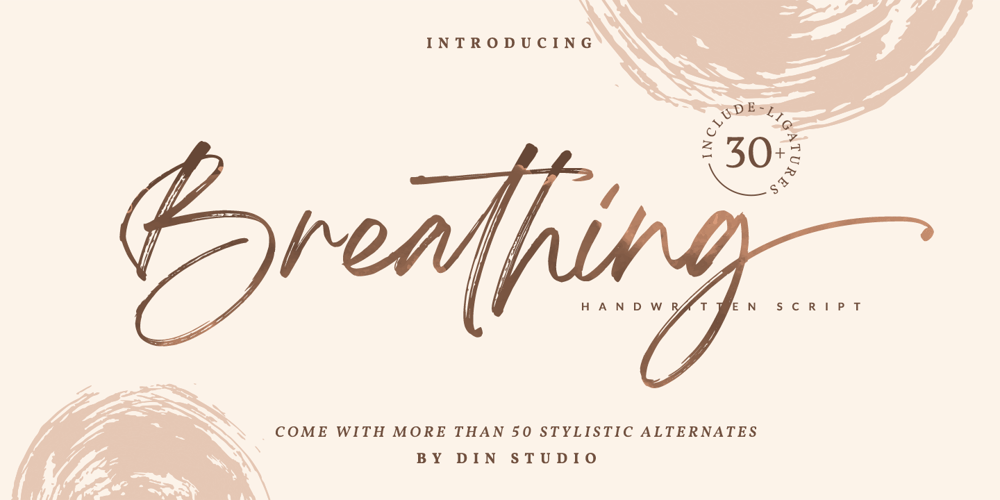
Breathing Font Family was designed by Donis Miftahudin and published by Din Studio. Breathing contains 2 styles and family package options. Hello, awesome people! This time, we have a new font called Breathing, a beautiful brush font created by Din Studio.Breathing, a beautiful brush signature font, is made for any professional project brandings, such as, signature logos, watermarks, wedding invitations, brandings, promotions, product packagings, etc. Every letter has a unique and beautiful touch. This font comes with rough and solid version.Breathing brush font includes a full set of hand-writing uppercase and lowercase letters, numerals, punctuations, and ligatures. This font gives a realistic hand-writing style. See the previews above to get some inspiration on how to use them. Happy designing!Features: 52 Stylistic sets 37 Ligatures Multilingual Supports PUA encoded We really hope you enjoy it. Thank you for downloading our premium fonts. For further details, please feel free to leave us your messages.